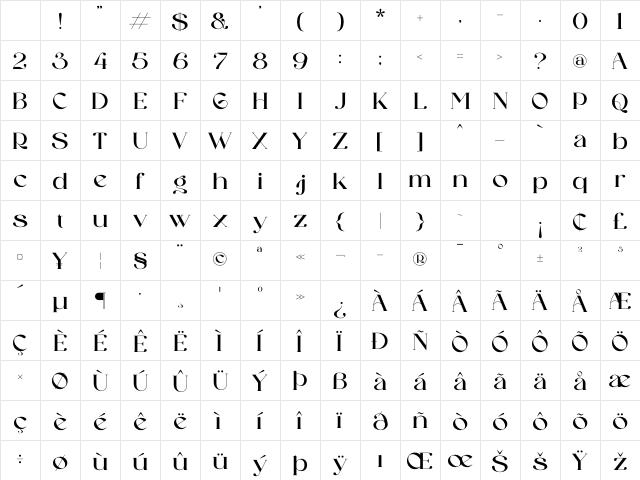
Complete Galeriya Regular glyph index. Displaying only characters natively supported by Galeriya Regular font.
Galeriya is a composed and adaptable typeface that performs quietly and consistently across a wide range of design contexts.